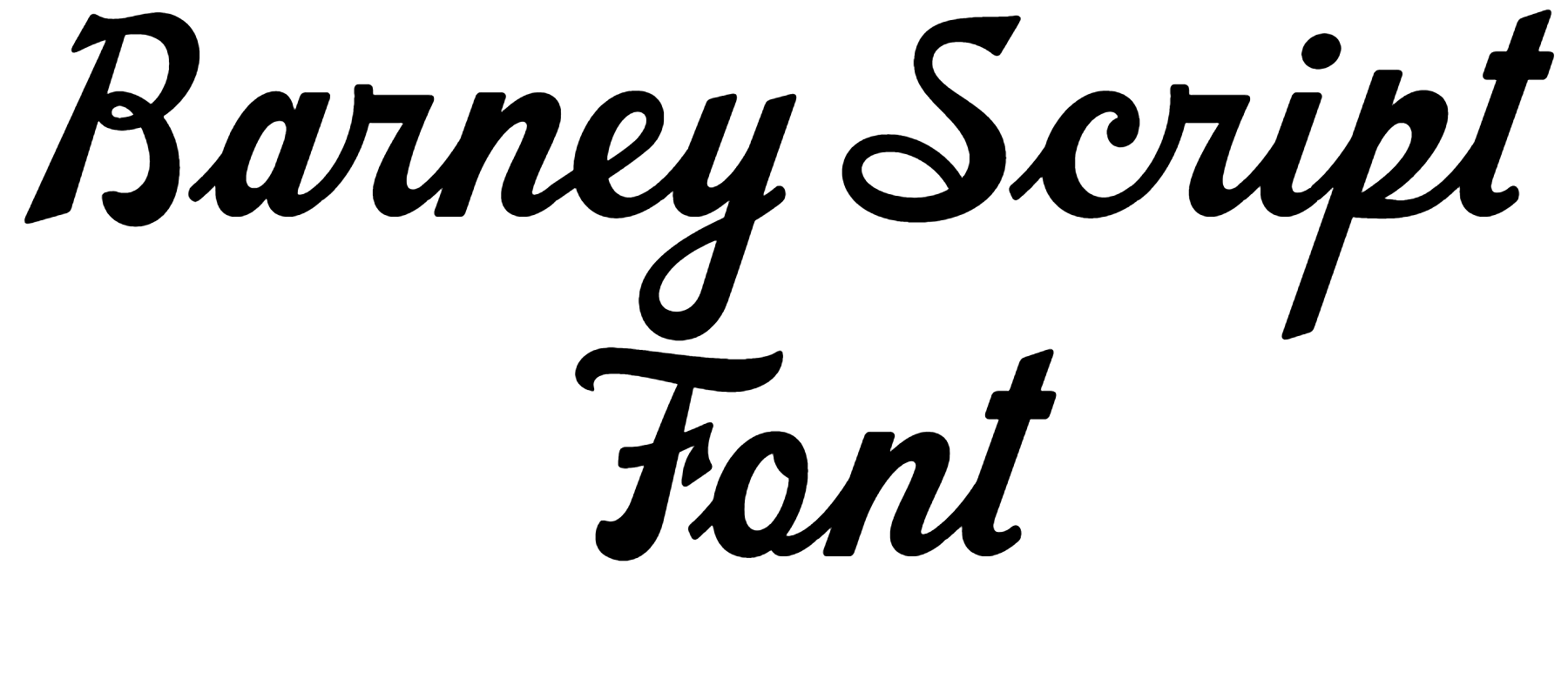
Barney Script
- OpenType features: Ligatures, 5 stylistic sets, old-style numbers and fractions
What You Can Type With Barney Script
You get every letter from A to Z in both cases and all the numbers from 0 to 9, which means Barney Script can handle full sentences, dates and prices. Everyday marks like &, !, ? and @ are there too. Thanks to its accented letters, it also works for Spanish, French, German, Portuguese and Italian, not just English.
Where Barney Script Works Best
Designers usually reach for fonts like Barney Script when they're making greeting cards, journal pages and friendly social posts. Set it a bit larger than you would a normal text font. Handwriting styles lose their charm once they get too small to read comfortably.